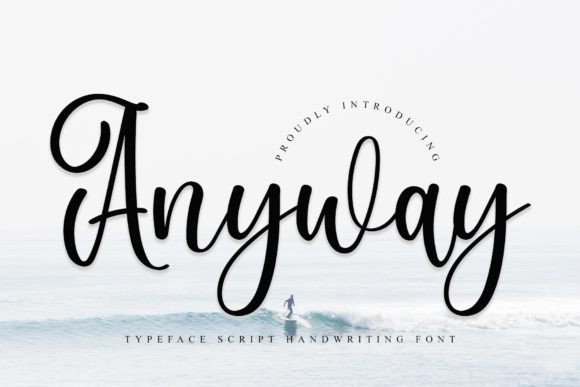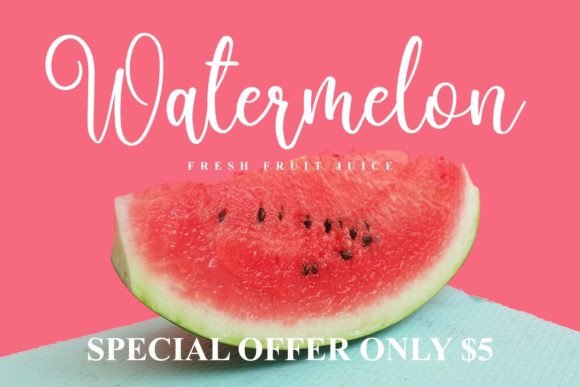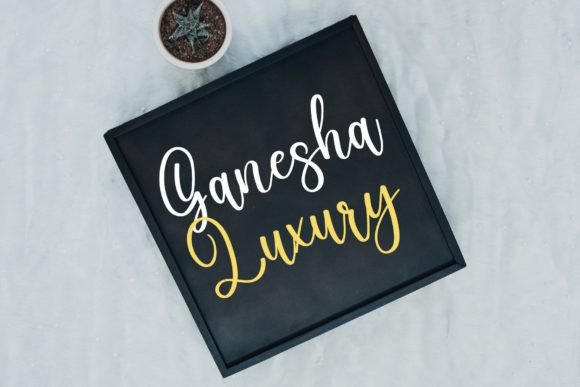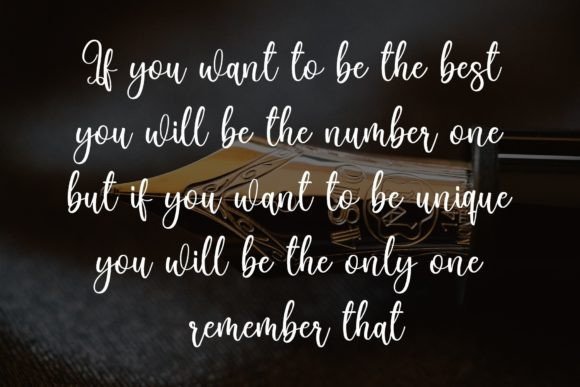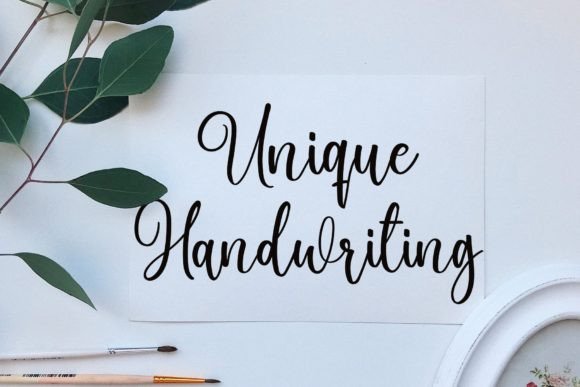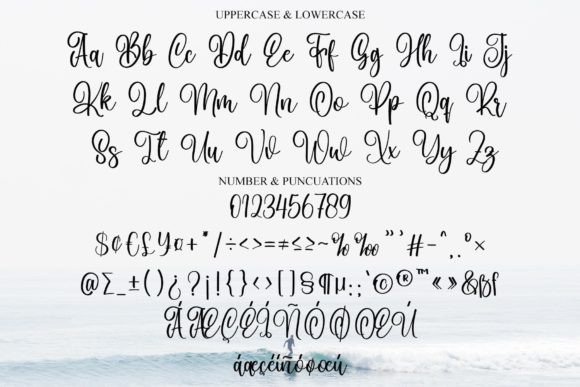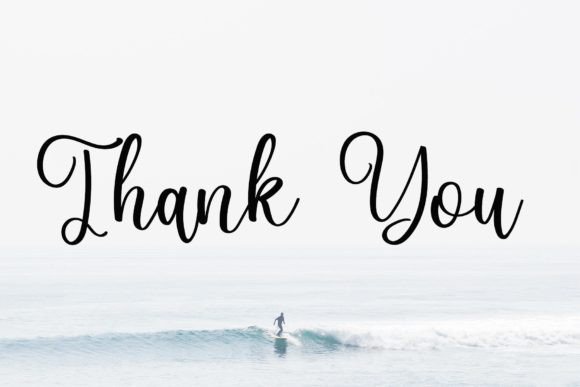
Anyway Font
About Anyway Font
“Anyway” is not just a font; it’s a neat and beautiful handwritten script described by an elegant touch, making it perfect for your favorite projects. This typeface invites you to fall in love with its incredibly distinct and timeless style, serving as a versatile tool to create spectacular designs. Whether you’re working on branding, web design, editorial content, prints, or any creative endeavor, “Anyway” adds an element of sophistication to your typography.
The neat and beautiful characteristics of “Anyway” contribute to its adaptability, making it suitable for a wide array of projects. The handwritten elegance it carries adds a layer of refinement to your designs, enhancing the overall aesthetic.
The timeless style of “Anyway” ensures that your designs maintain their appeal across different contexts. It offers a blend of classic and contemporary, making it suitable for a range of applications where you want to convey both tradition and modernity.
As you use “Anyway” in your creative projects, you’ll discover how it brings a distinct charm and elegance to your designs. Whether you’re a professional designer or an enthusiast exploring your creativity, let “Anyway” be the font that transforms your ideas into visually stunning and memorable creations.
In summary, “Anyway” is a font that goes beyond mere letters; it’s a creative tool that enhances your designs with beauty and timelessness. Add it to your toolkit and watch as it turns your favorite projects into spectacular designs that capture attention and leave a lasting impression.